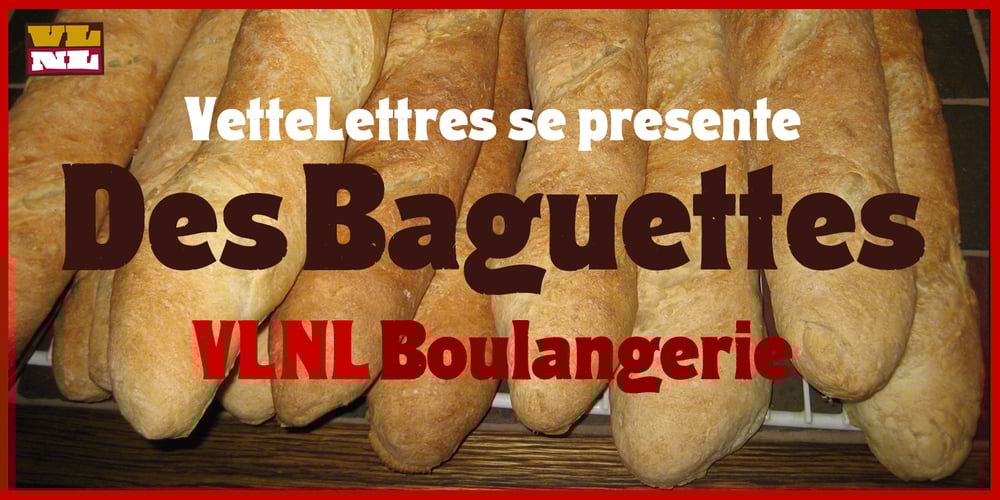
VLNL Boulangerie Font Family was designed by Donald Roos and published by VetteLetters. VLNL Boulangerie contains 1 styles and family package options. VLNL Boulangerie was originally an incomplete set of early 20th century wood type letters, that Donald Roos found in a dust covered carton box stashed away somewhere at the Royal Academy in The Hague. Charmed by the letter forms Donald decided to print them on paper with a printing press. Next he digitised the prints as they came out, including small imperfections and damages. The missing characters were composed and added digitally to complete the alphabet. (See if you can spot those!?) We think VLNL Boulangerie is a little French in appearance (hence the name), it’s joyful, warm, a little crunchy and round-ish. It defenitely has that ‘je-ne-sais-quoi’ that seperates it from most wood type grotesques. It can be perfect for lettering on a storefront window of – let’s say a bread shop or a lunchroom. Or a logo for a downtown hipster café. VLNL Boulangerie hardly has any limitations actually.